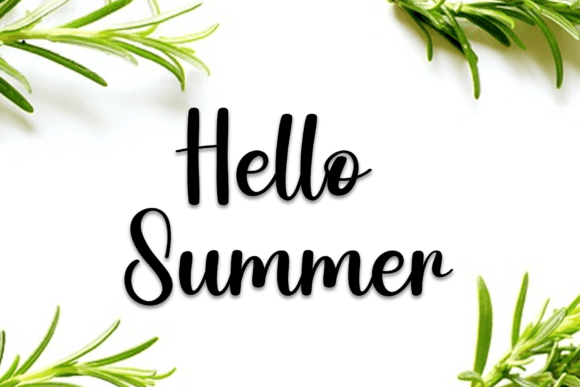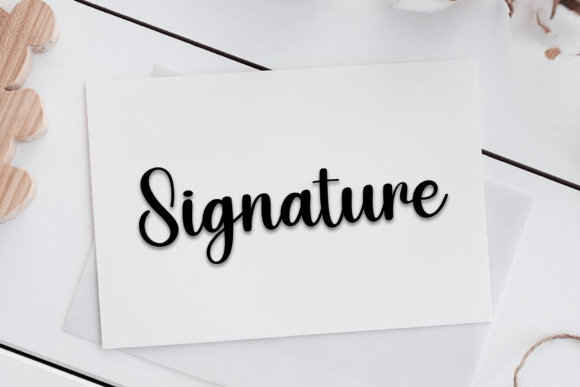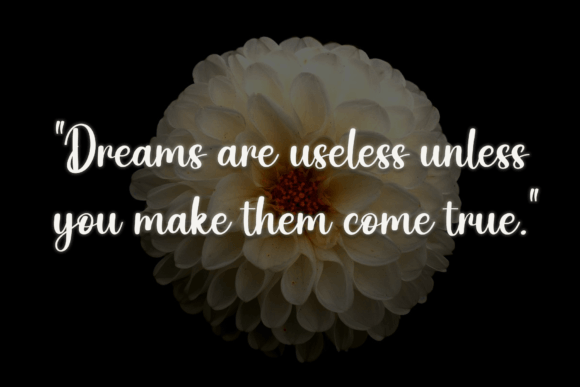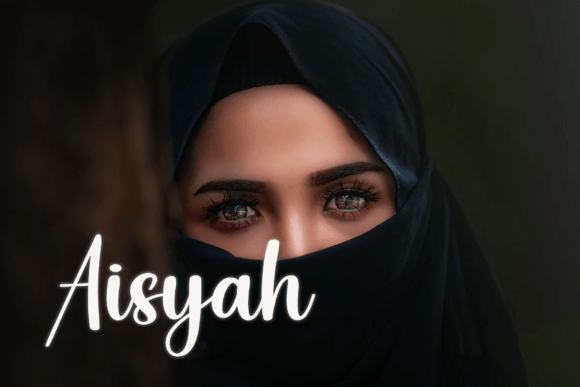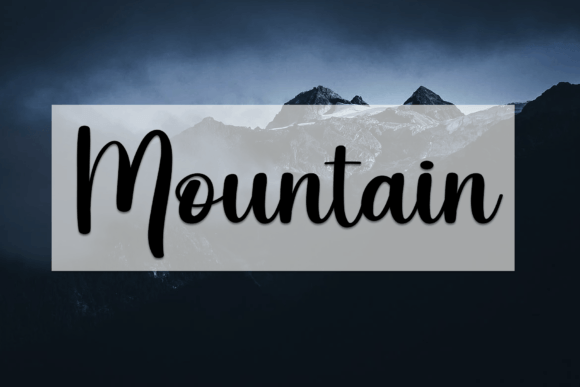
Discover the Versatility of Canva Font: Elevate Your Designs with a Unique Handwritten Style
When it comes to creating visually appealing designs, the right font can make all the difference. Canva Font, a distinctive round-lettered handwritten font, has been carefully crafted to produce the desired results. This versatile font is perfect for writing titles, invitations, letters, and a wide range of products, making it an essential tool for designers and crafters alike.
What is Canva Font?
Canva Font is a thoughtfully designed font that boasts a unique, handwritten style. Its rounded letters give it a friendly and approachable feel, making it ideal for a variety of design projects. Whether you’re looking to create eye-catching titles, elegant invitations, or personalized letters, Canva Font is the perfect choice.
Key Features of Canva Font
- Unique Handwritten Style: Canva Font’s distinctive handwritten style sets it apart from other fonts. Its carefully crafted letters are designed to produce a specific look and feel.
- Round-Lettered Design: The font’s round-lettered design gives it a friendly and approachable feel, making it perfect for designs that require a personal touch.
- Versatility: Canva Font can be used for a wide range of design projects, including titles, invitations, letters, and more.
- Ease of Use: Canva Font is easy to read and use, making it perfect for designers and crafters of all skill levels.
Uses of Canva Font
Canva Font’s versatility makes it an excellent choice for various design projects. Here are some of the many ways you can use Canva Font:
- Titles and Headings: Use Canva Font to create eye-catching titles and headings for your designs.
- Invitations: Create elegant and personalized invitations for special occasions, such as weddings, birthdays, and graduations.
- Letters and Correspondence: Use Canva Font to add a personal touch to your letters and correspondence.
- Product Design: Canva Font is perfect for designing a wide range of products, including business cards, brochures, and posters.
Benefits of Using Canva Font
Canva Font offers several benefits that make it an excellent choice for designers and crafters. Here are some of the advantages of using Canva Font:
- Unique Design: Canva Font’s unique design sets it apart from other fonts, making it perfect for designers who want to create distinctive designs.
- Easy to Read: Canva Font is easy to read, making it perfect for designs that require a clear and concise message.
- Versatile: Canva Font can be used for a wide range of design projects, making it an excellent addition to any designer’s toolkit.
- Time-Saving: Canva Font is easy to use, saving designers time and effort when creating designs.
Tips for Using Canva Font
Here are some tips for using Canva Font effectively:
- Use it Sparingly: Use Canva Font sparingly to create emphasis and add visual interest to your designs.
- Pair it with Other Fonts: Pair Canva Font with other fonts to create a unique and visually appealing design.
- Experiment with Colors: Experiment with different colors to find the perfect combination that complements Canva Font.
Canva Font is a versatile and unique handwritten font that is perfect for designers and crafters. Its round-lettered design and distinctive style make it an excellent choice for a wide range of design projects. With its ease of use, versatility, and unique design, Canva Font is an essential tool for anyone looking to elevate their designs.